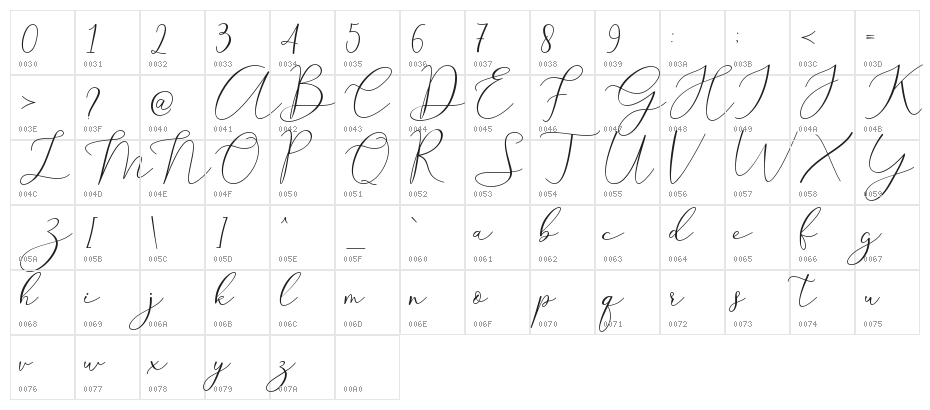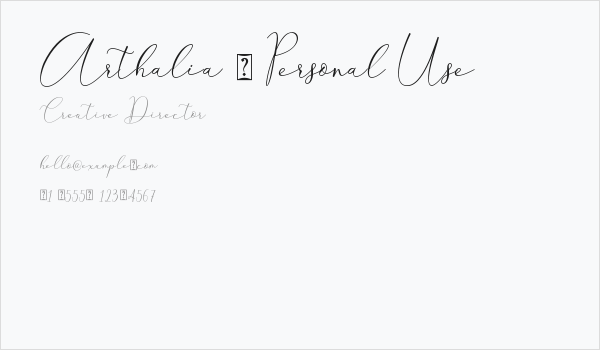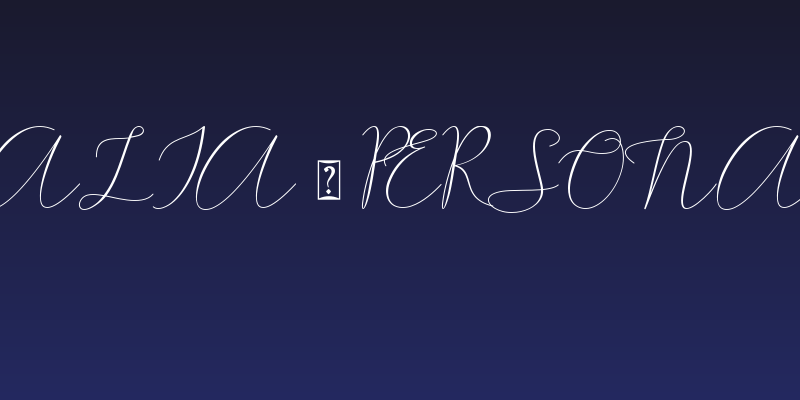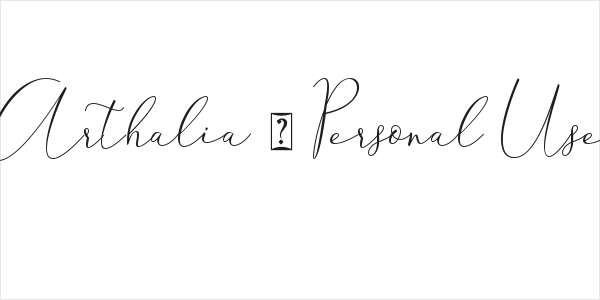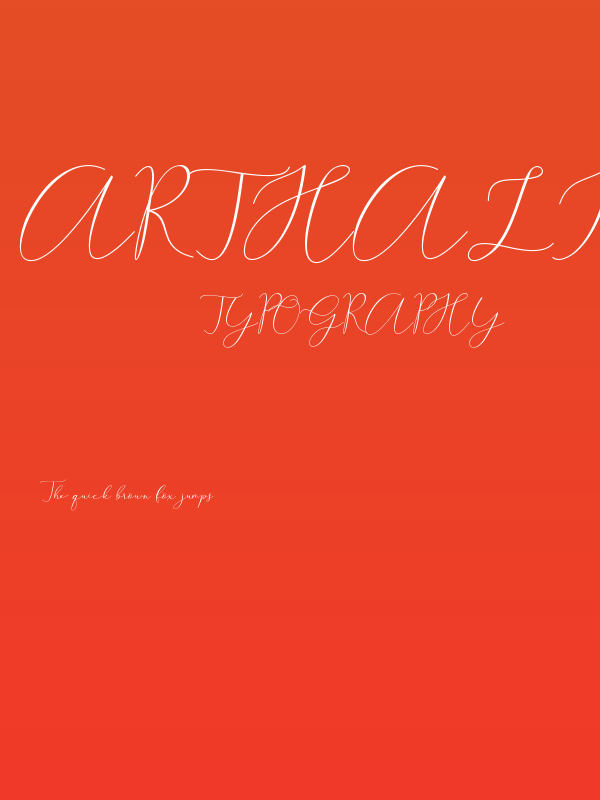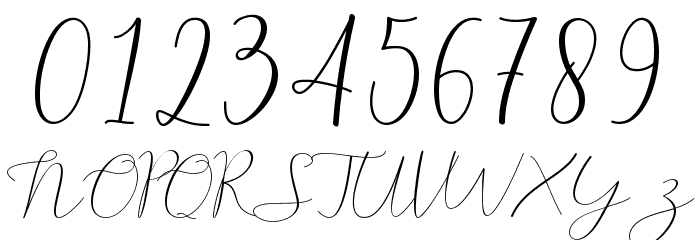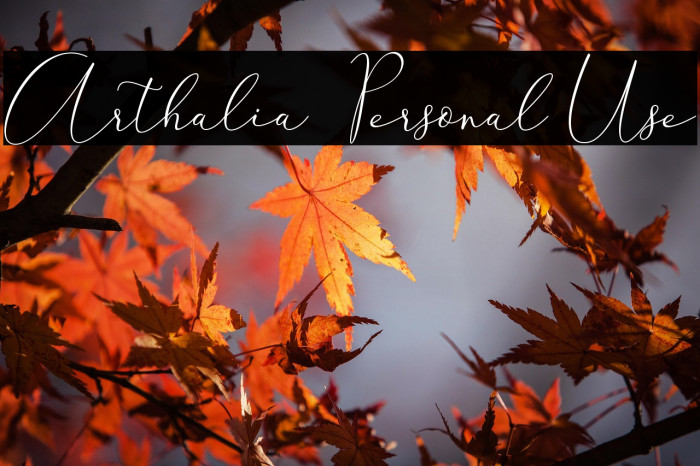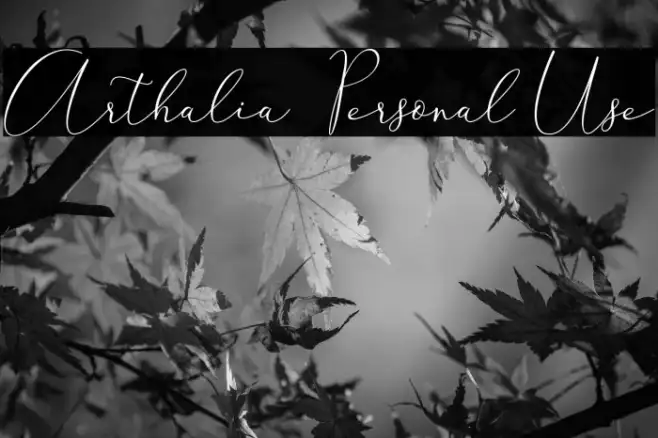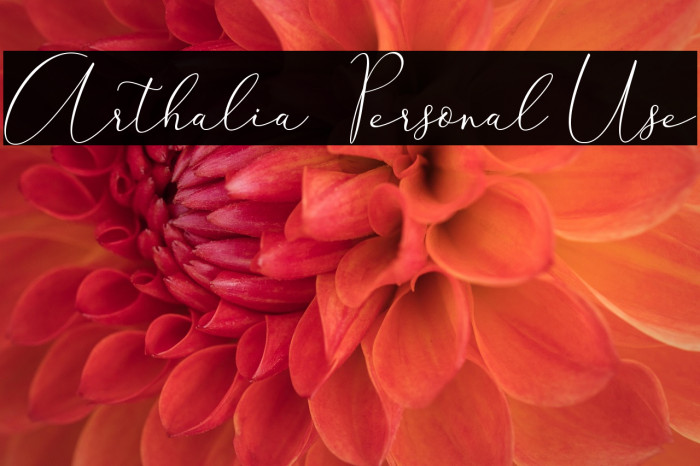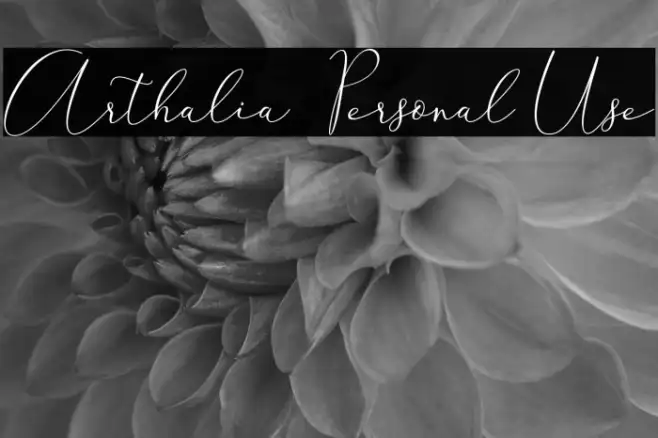
Arthalia - Personal Use Font
Arthalia - Personal Use Description
This font exudes elegance with its flowing, cursive style, characterized by smooth, continuous strokes that mimic the fluidity of handwriting. The uppercase letters are gracefully elongated, while the lowercase letters maintain a consistent, delicate form. The numerals are distinct yet harmonize with the overall script style, offering a cohesive look. The special characters are thoughtfully integrated, maintaining the font's sophisticated aesthetic. This font is ideal for projects that require a personal touch, such as invitations, greeting cards, or branding materials that aim to convey elegance and refinement.
| Use Case | Headlines, Invitations, Branding |
| Proposed Projects | Ideal for wedding invitations, elegant branding, personal stationery, and greeting cards. |